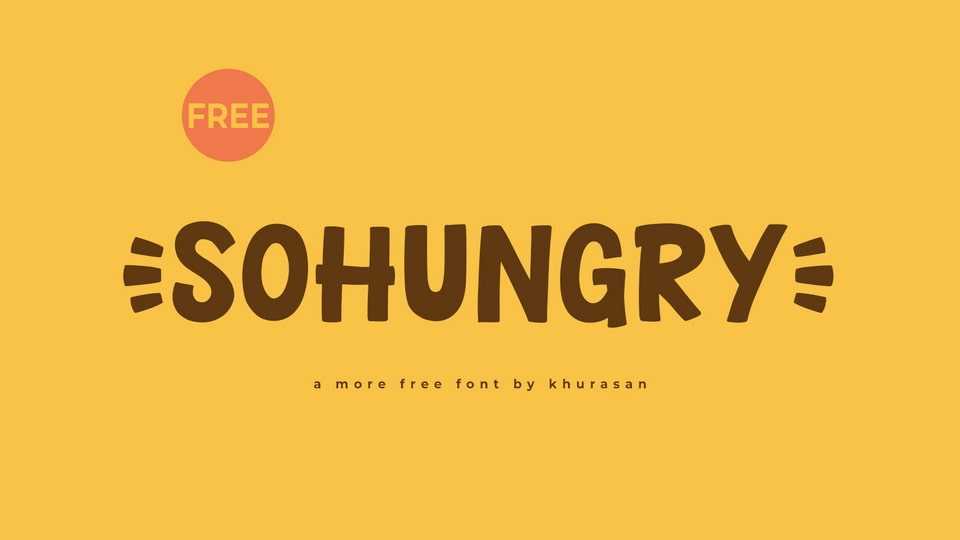
Download Sohungry font, a delightfully playful and bouncy hand crafted cartoon typeface designed to infuse your projects with a burst of joy and whimsy. Sohungry font captures the essence of a funny doodle, making it the perfect choice for projects that require a lighthearted and cheerful touch.